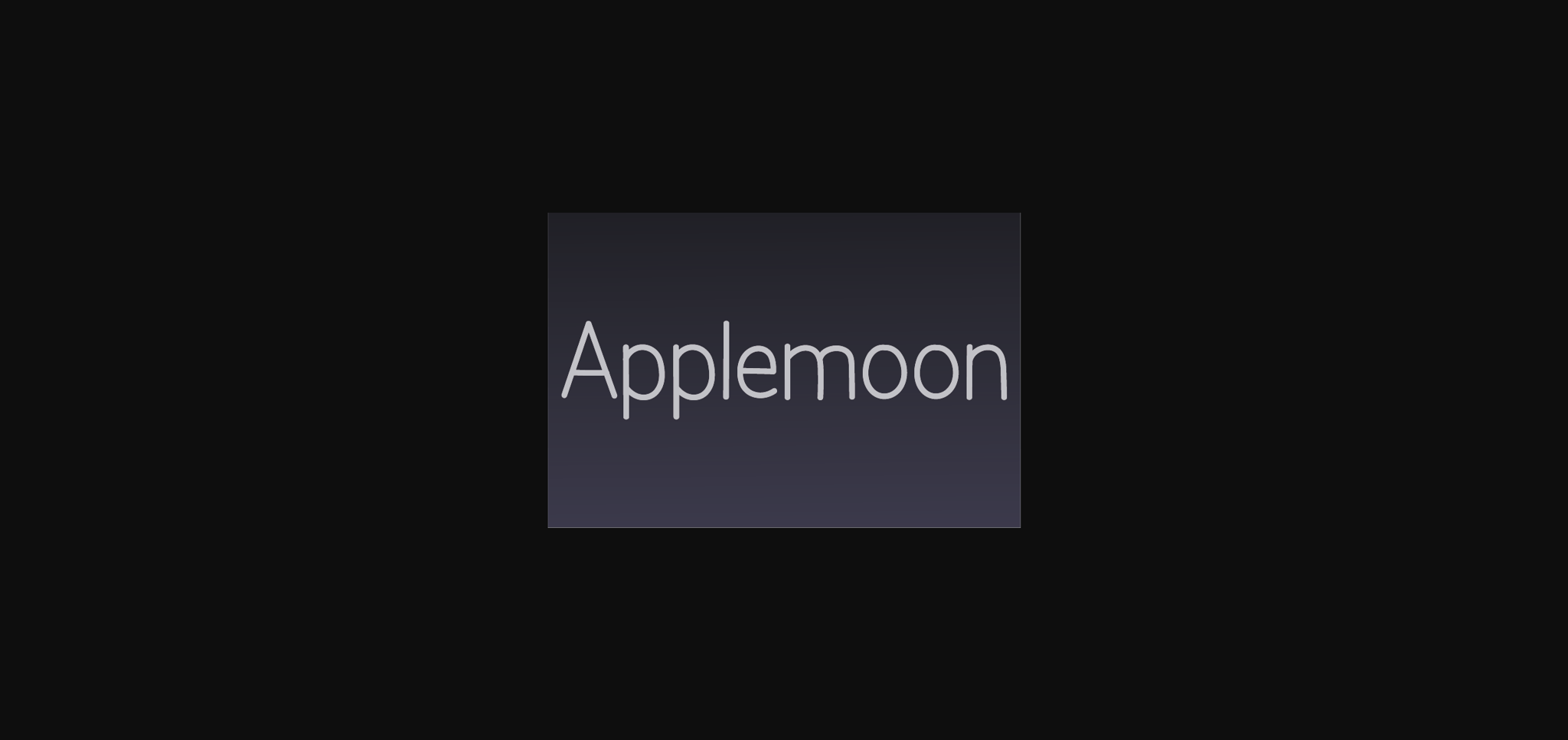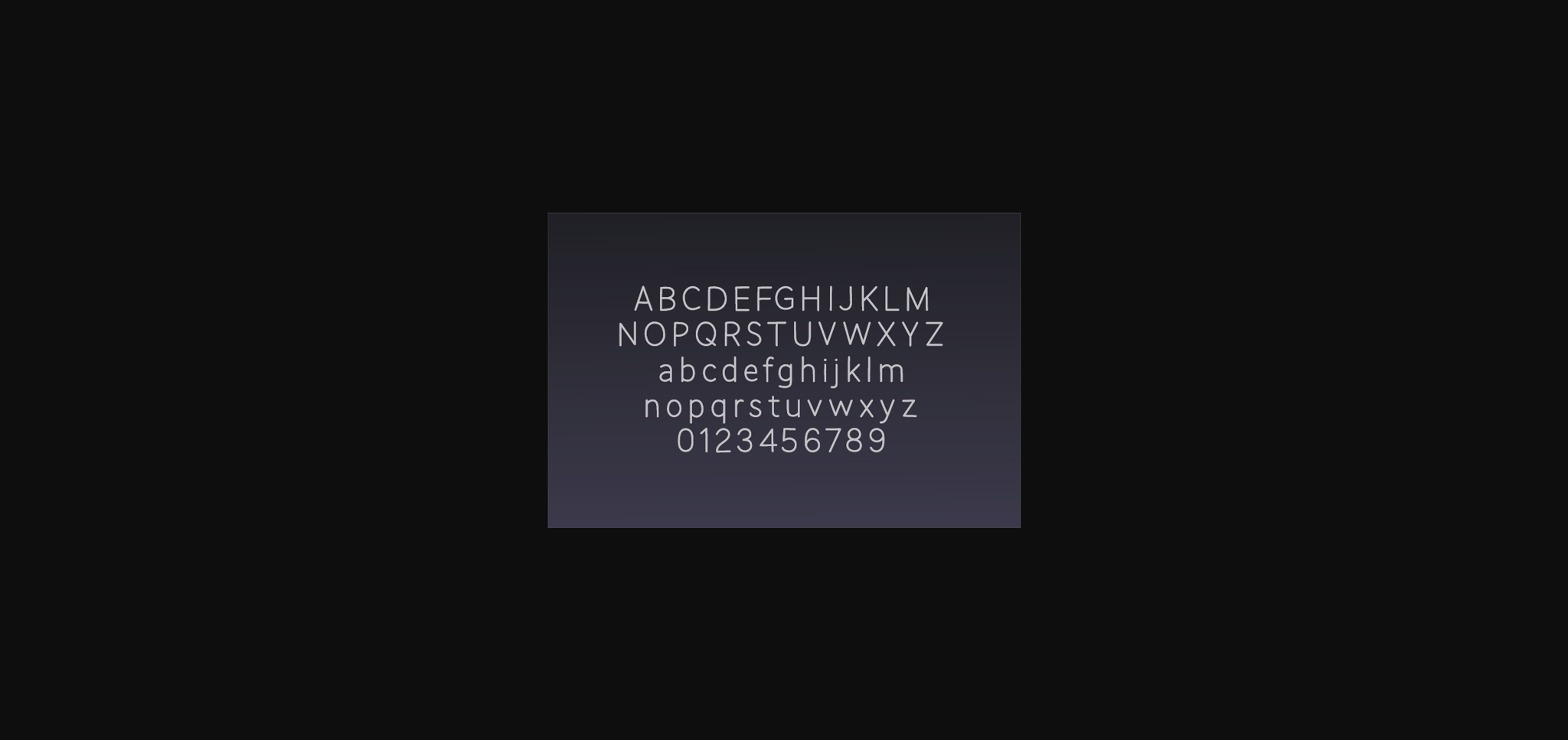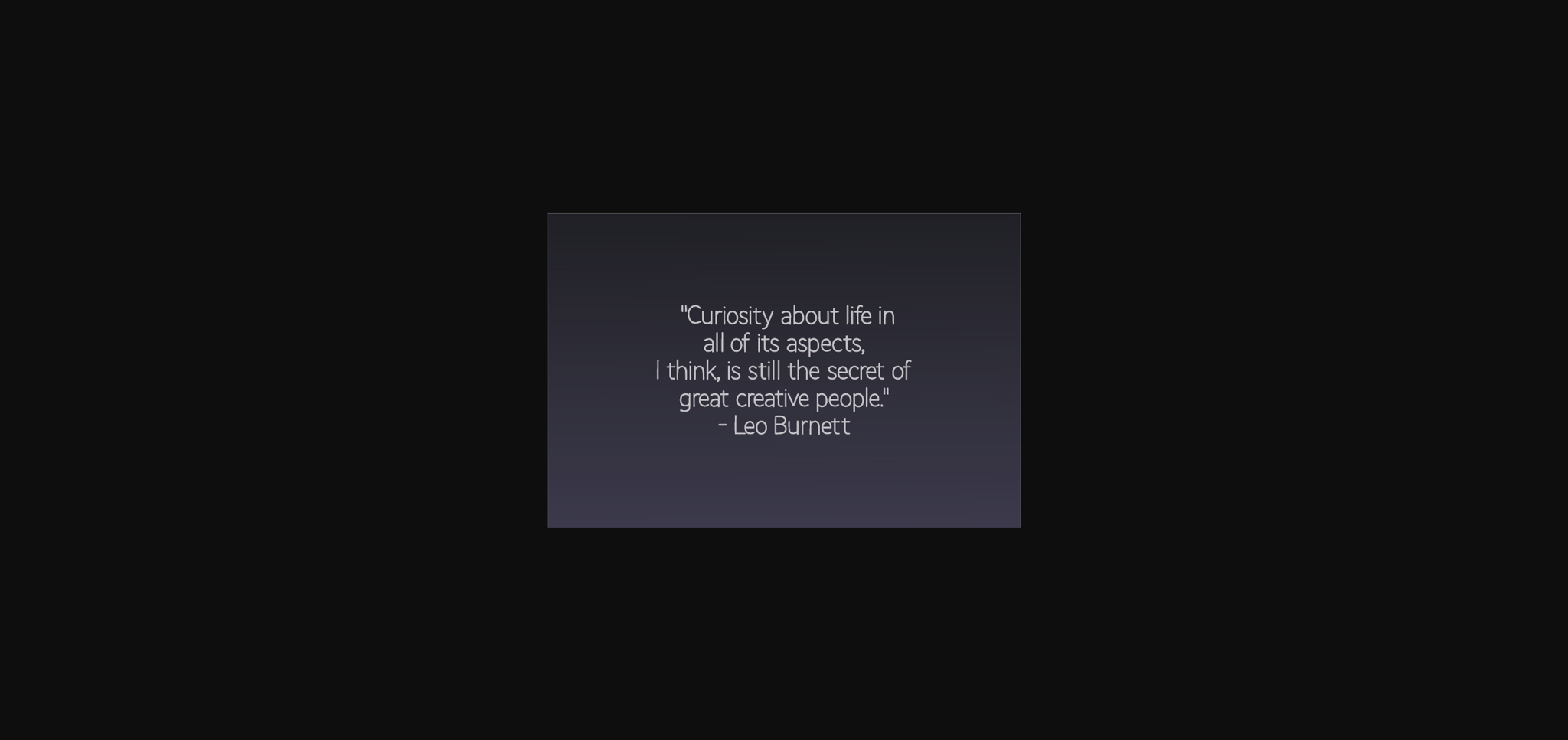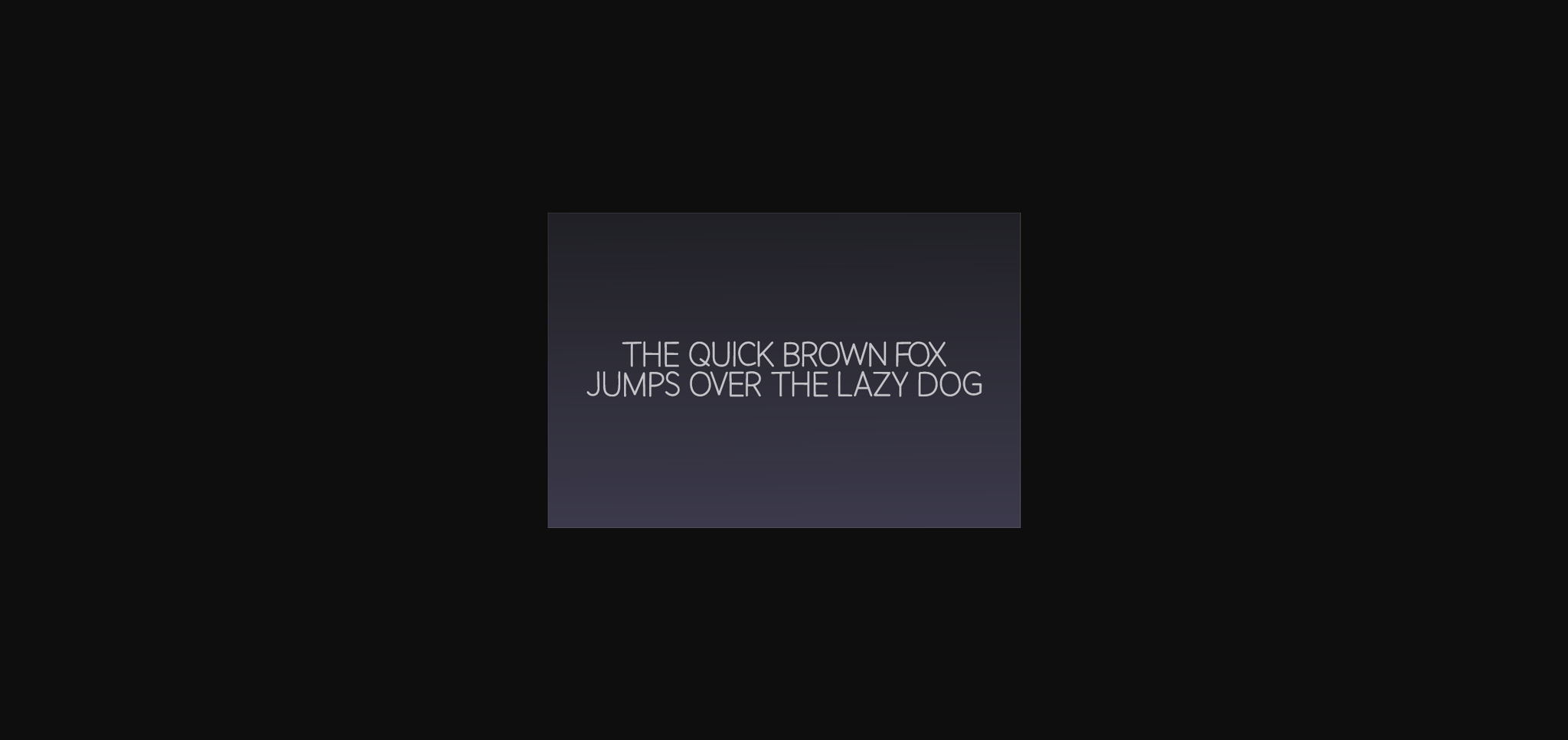
Applemoon Font
About Applemoon Font
Applemoon is a casual and neat sans serif font that impresses through its natural and elegant style. This typeface will enhance your craft with little effort, making your product stand out from the competition.